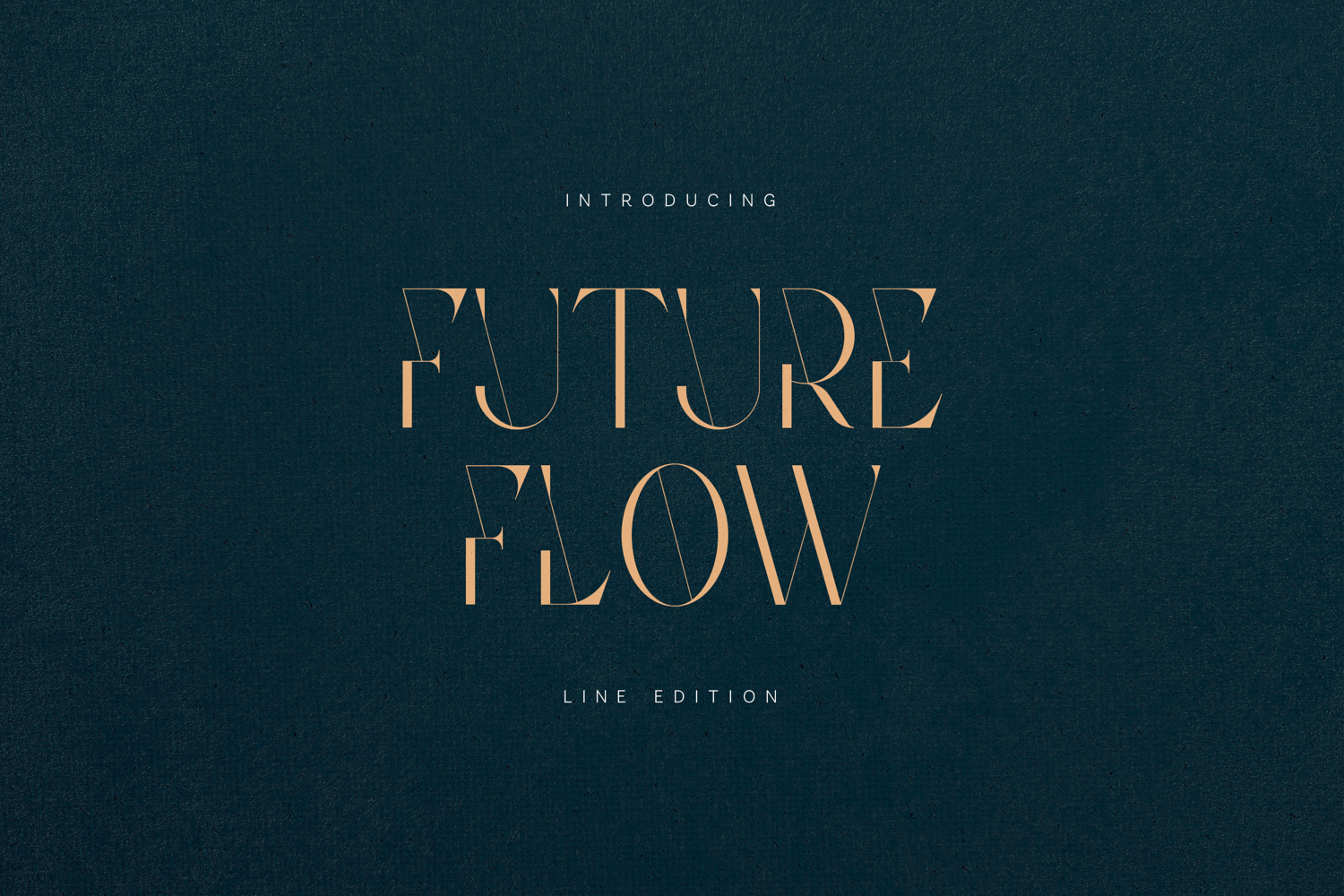
Future Flow Line Edition Elegant Inline Serif Font
Future Flow Line Edition is a high-contrast luxury serif featuring refined inline detailing that adds depth, character, and modern elegance to every letterform.
Designed for bold editorial impact, this typeface blends sharp sculpted serifs with delicate internal line accents, creating a sophisticated visual rhythm. It is perfect for premium branding, fashion campaigns, luxury packaging, and statement typography.
The elegant contrast and flowing structure make it ideal for large display sizes, logos, and high-end compositions where refinement is key.
• Luxury branding
• Editorial design
• Fashion magazines
• Wedding invitations
• Logo design
• Packaging
• Social media graphics
• Premium typography layouts
Carefully crafted to bring timeless sophistication with a modern edge.